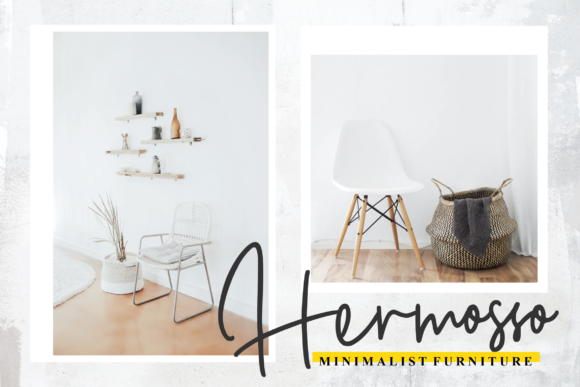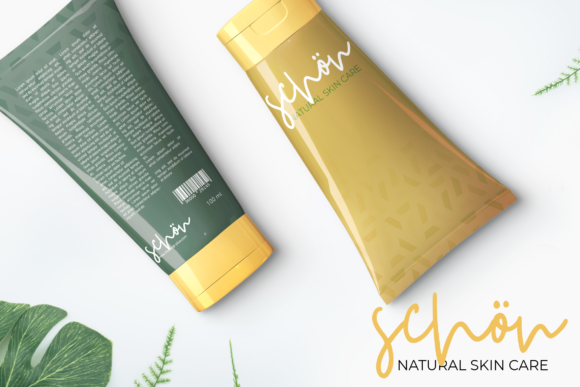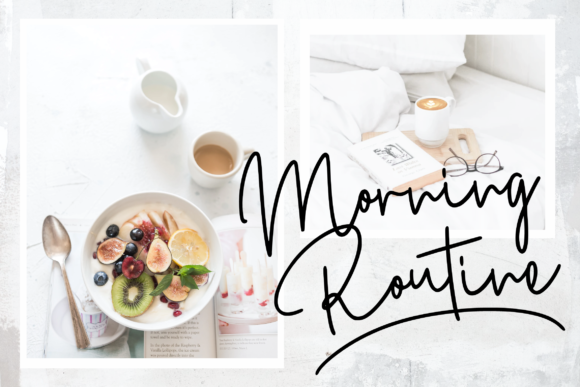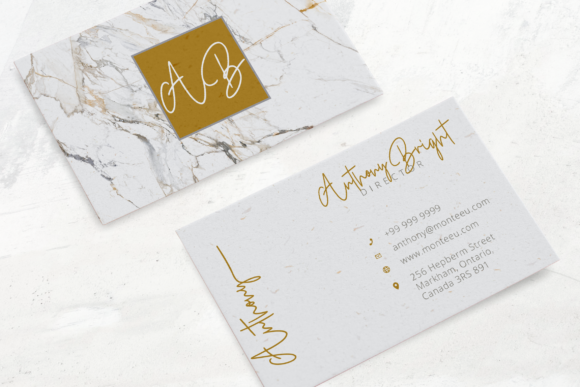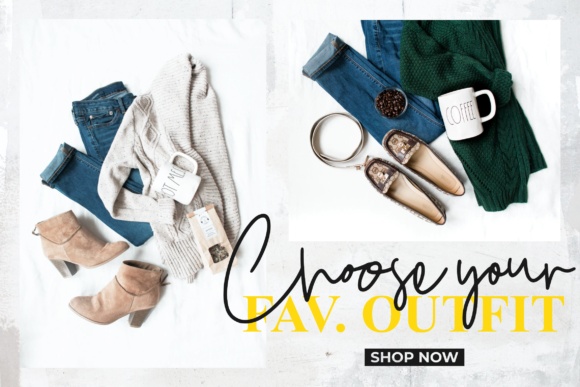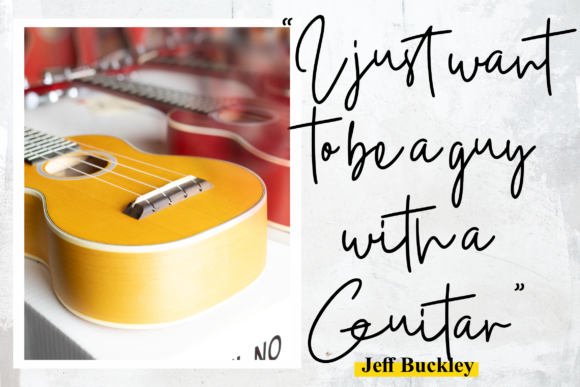
Introduction to Rochestar Font
Have you ever stared at a blank page, waiting for the perfect font to spark your creativity? I know I have. And then, it hits you – a beautiful handwritten script that brings your design to life. For designers, finding the right font can be a game-changer, and that’s exactly what the Rochestar Font offers.
With its unique, high-quality design, the Rochestar Font is perfect for any creative project that requires a personal touch. Whether you’re working on a branding project, designing wedding invitations, or creating social media posts, this font is sure to elevate your design and leave a lasting impression. And the best part? It’s available for free download, making it an invaluable design resource for designers of all levels.
One of the standout features of the Rochestar Font is its PUA encoding, which allows for seamless access to all of the glyphs and swashes. This means you can create intricate designs with ease, and even add a transparent background to give your design a clean, modern look.
- One of the unique characteristics of Rochestar Font is its modern and sleek design, making it perfect for creative projects that require a touch of sophistication.
- It is a versatile design resource that can be used for a wide range of creative projects, from logos and branding to digital art and graphics.
As a designer, I’m always on the lookout for high-quality design resources to elevate my creative projects. Recently, I stumbled upon the Rochestar Font, which caught my eye with its sleek and modern aesthetic.
- ✨ Beautifully crafted characters with a focus on legibility and readability
- ✨ High-quality font files that ensure smooth rendering on various devices and platforms
- ✨ A transparent background that allows for seamless integration with any design
- ⚠️ Limited font weights and styles may restrict its use in complex design projects
- ⚠️ May not be suitable for extremely large or small font sizes due to its design intent
Overall, I’m impressed with the Rochestar Font’s potential as a design resource. Its high-quality design and free download option make it a great addition to any designer’s toolkit. While it may have some limitations, it’s a solid choice for simple to medium-complexity projects.
Common Use Cases for the Rochestar Font
The Rochestar Font is ideal for a variety of creative projects, including logos, business cards, and marketing materials. Its high-quality design and transparent background make it perfect for use in digital designs, such as website headers and social media graphics. You can also use the font in print designs, such as brochures and posters, to add a touch of creativity and professionalism.